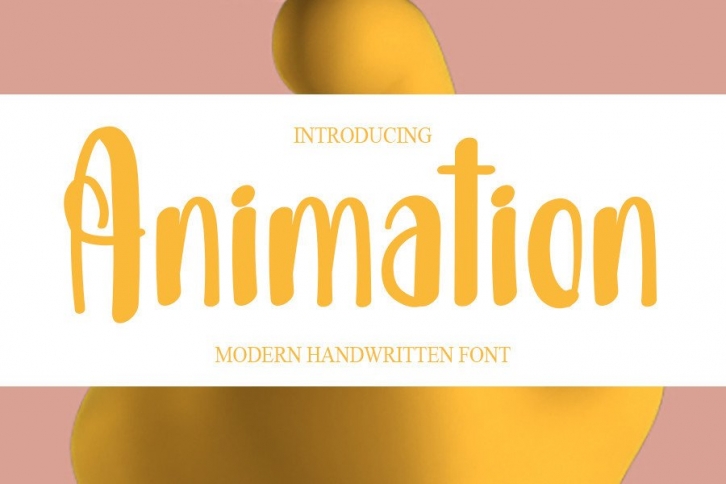
Animation is a cool handwritten font with a modern vibe and spotless form, inspired by classic calligraphy. Not too thin and not too thick, balanced and varied, this font was designed to enhance the beauty of your projects.